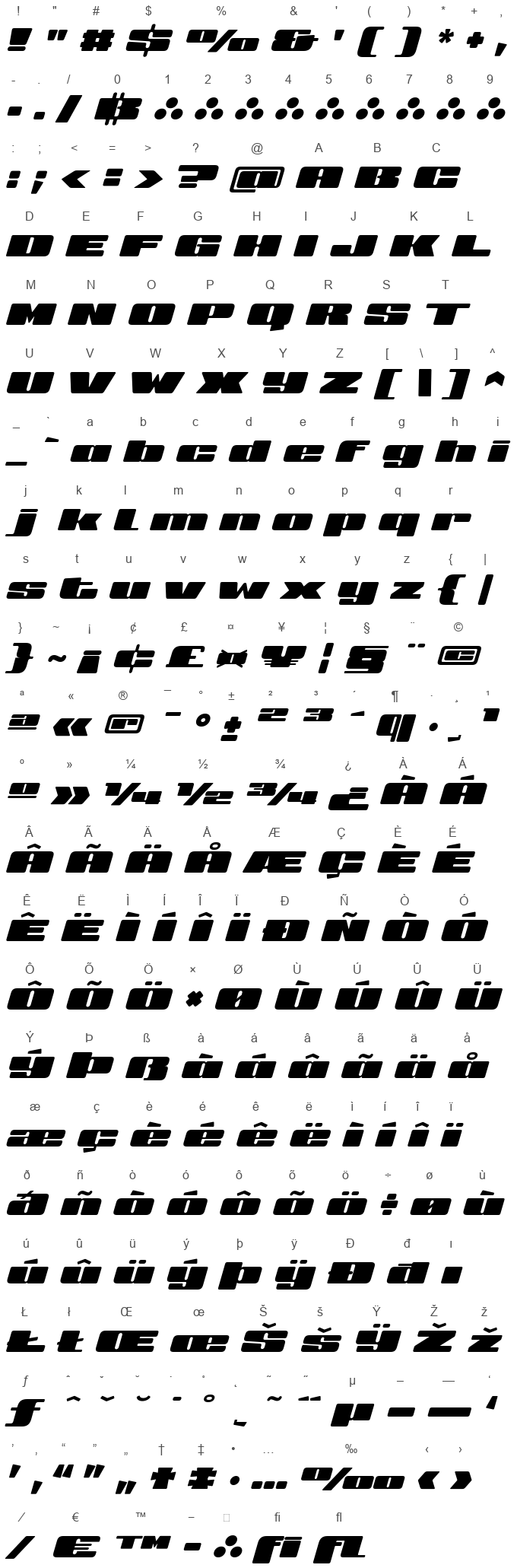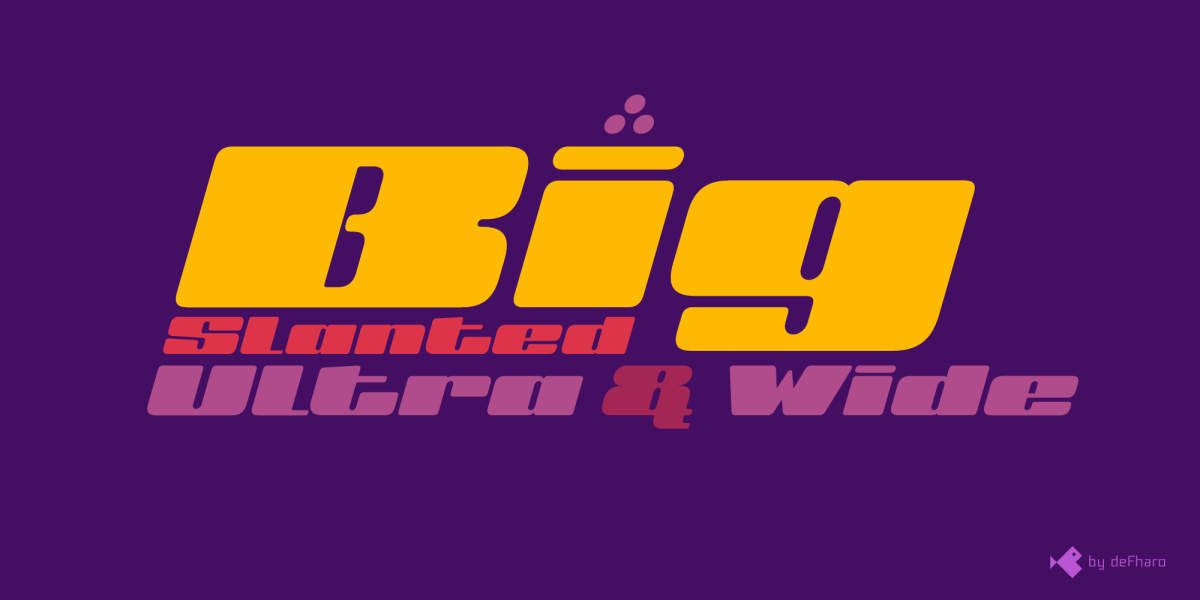
BIG Slant, with a decisive 16° slant, brings speed, contemporaneity, and an unmistakable look—as its name suggests, enormous, because with just three letters, it says more than others in a full line. It's an ultra-wide, ultra-black, and ultra-expressive typeface, designed to occupy space with strength, decisiveness, and style. Each letter is designed to shout without losing elegance, to impress while remaining functional.
I've kept the ascenders and descenders to a minimum; they're short, almost anecdotal, because what matters here is the horizontal presence. I focused on every detail to enhance the width that makes it unique. The result is a powerful, coherent, and perfectly legible visual texture.
BIG Slant Black UltExp